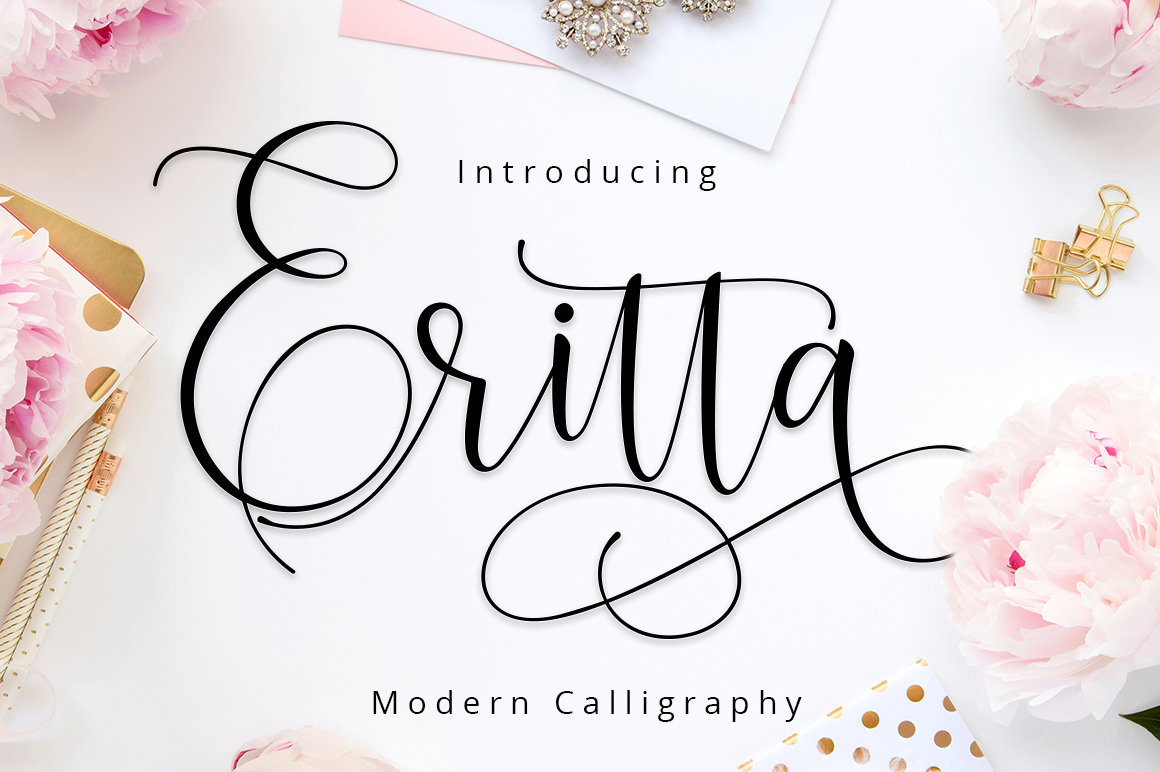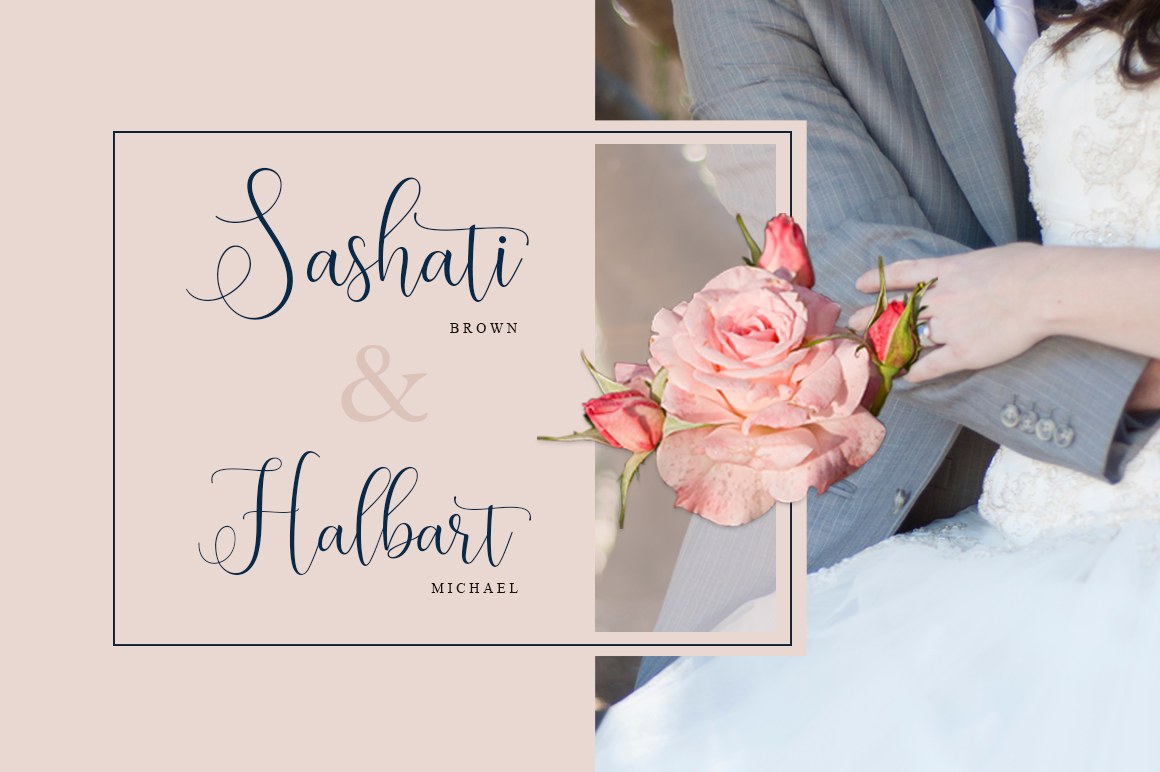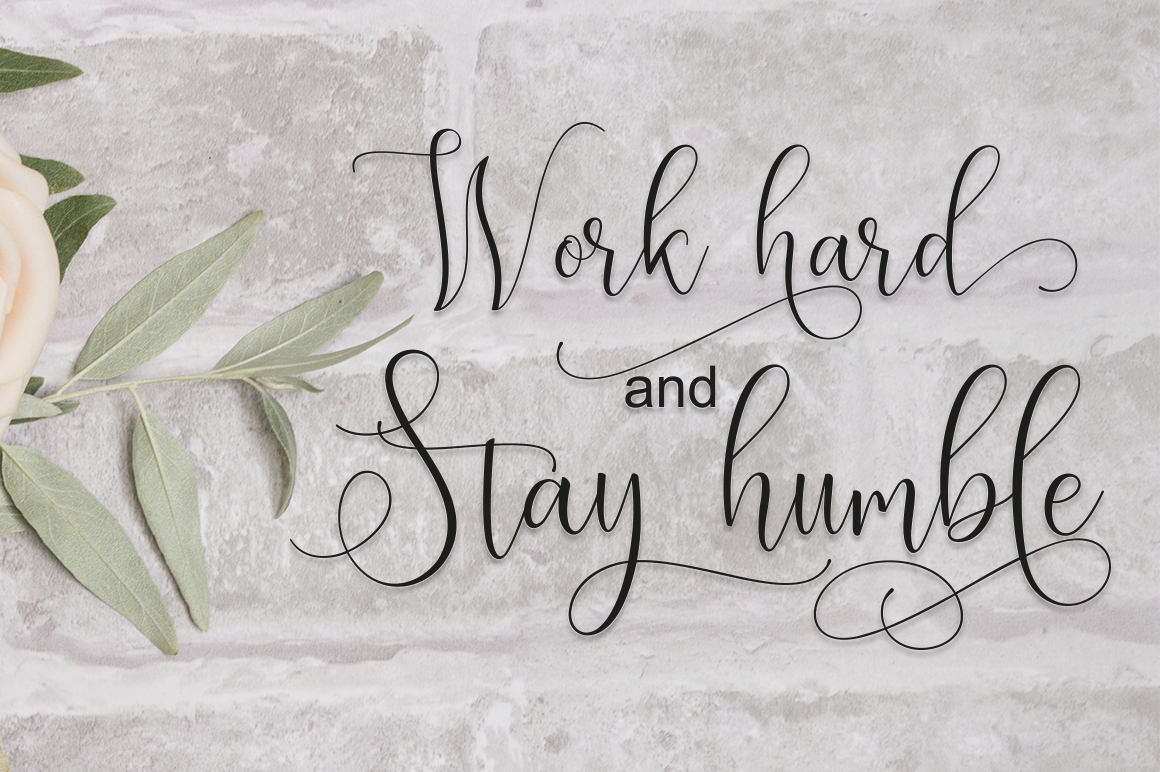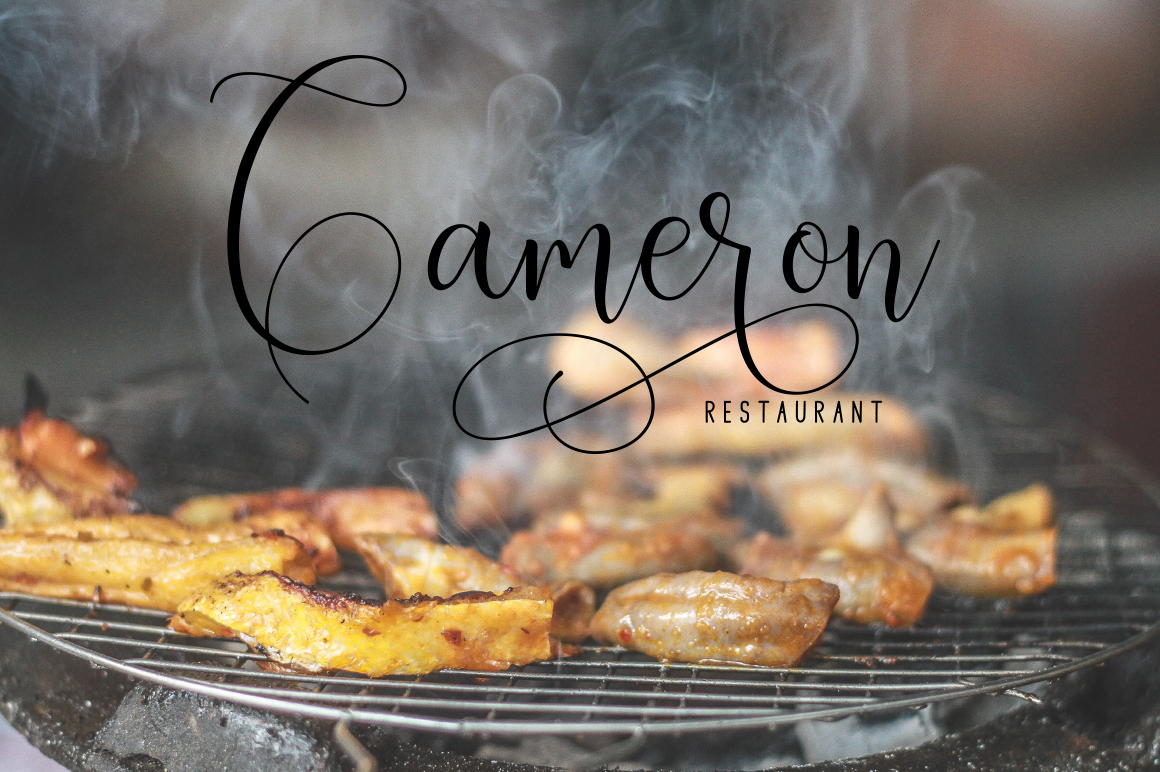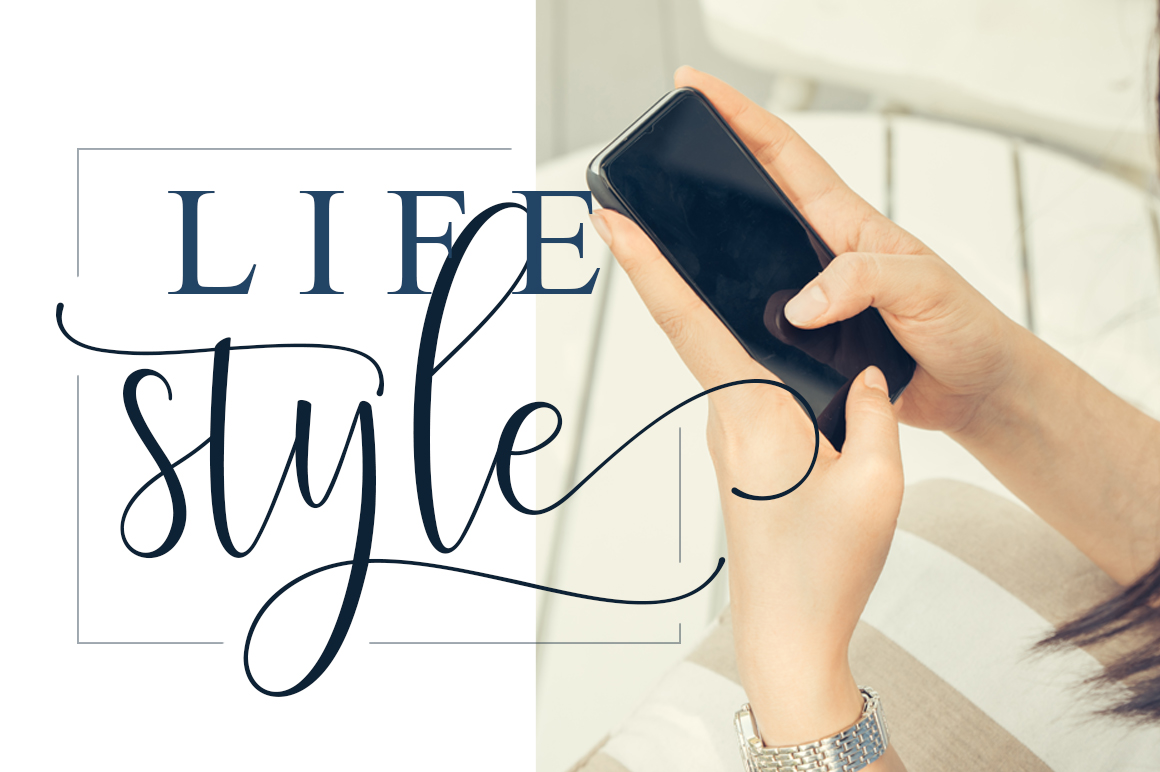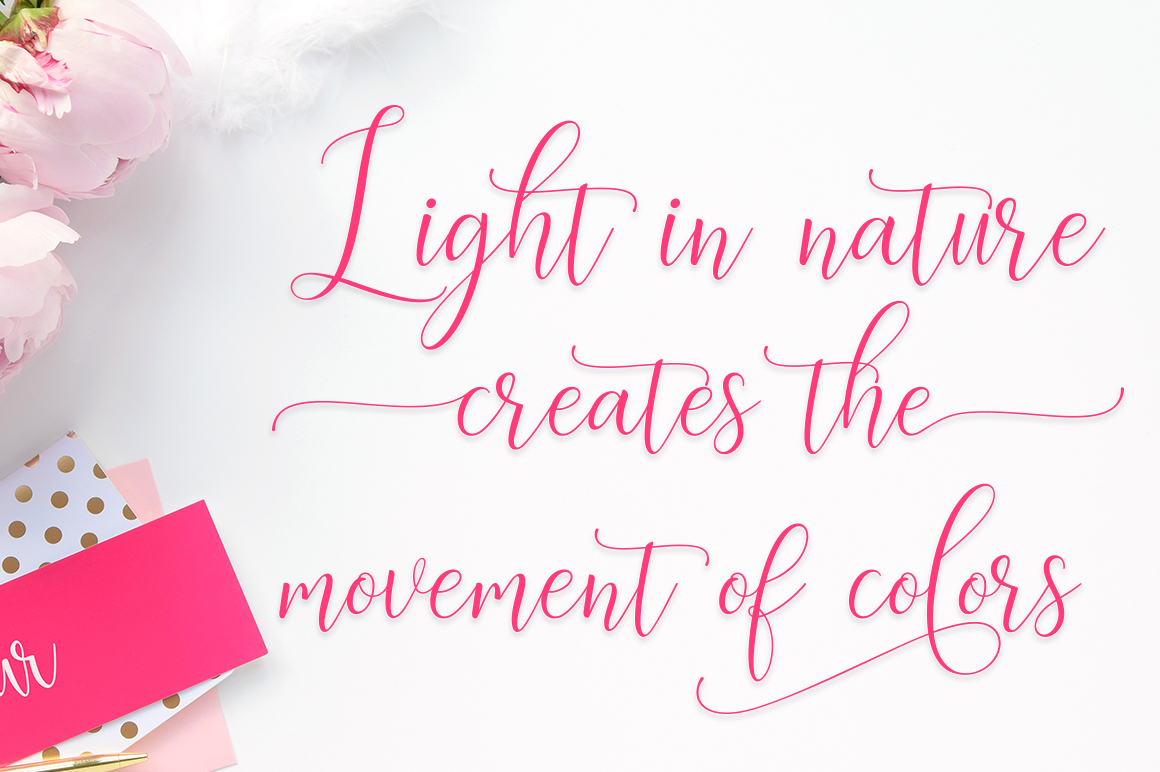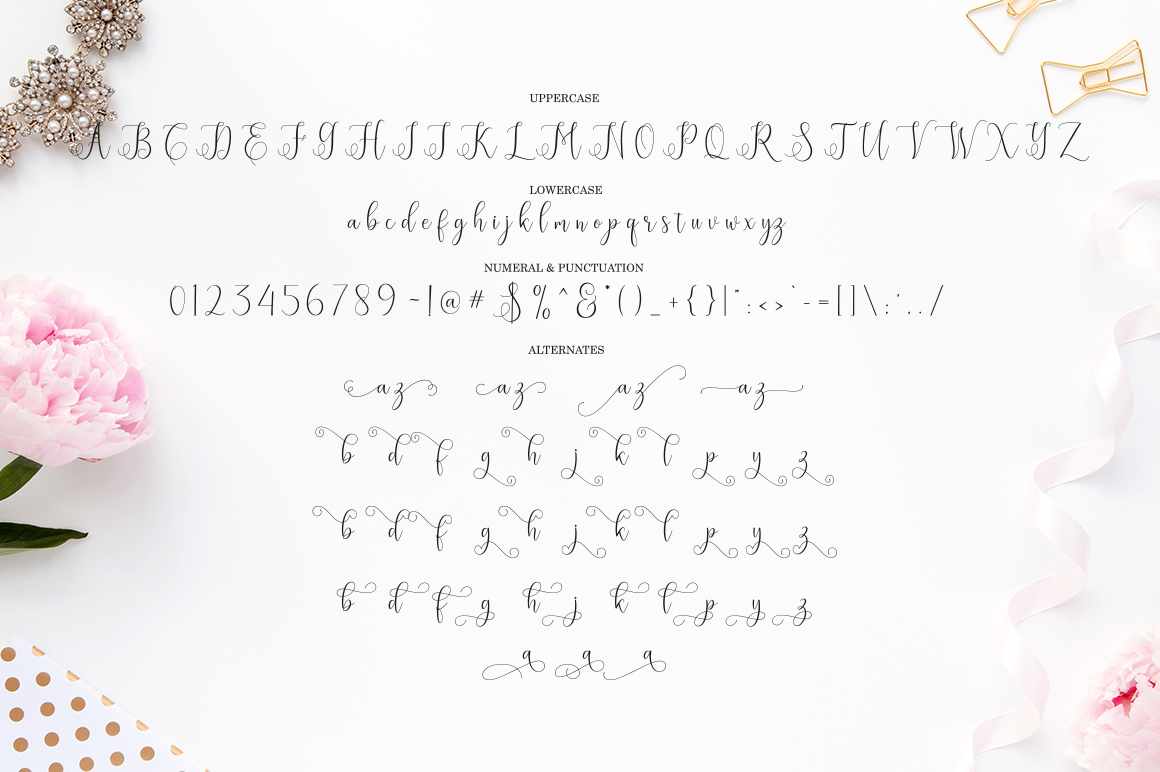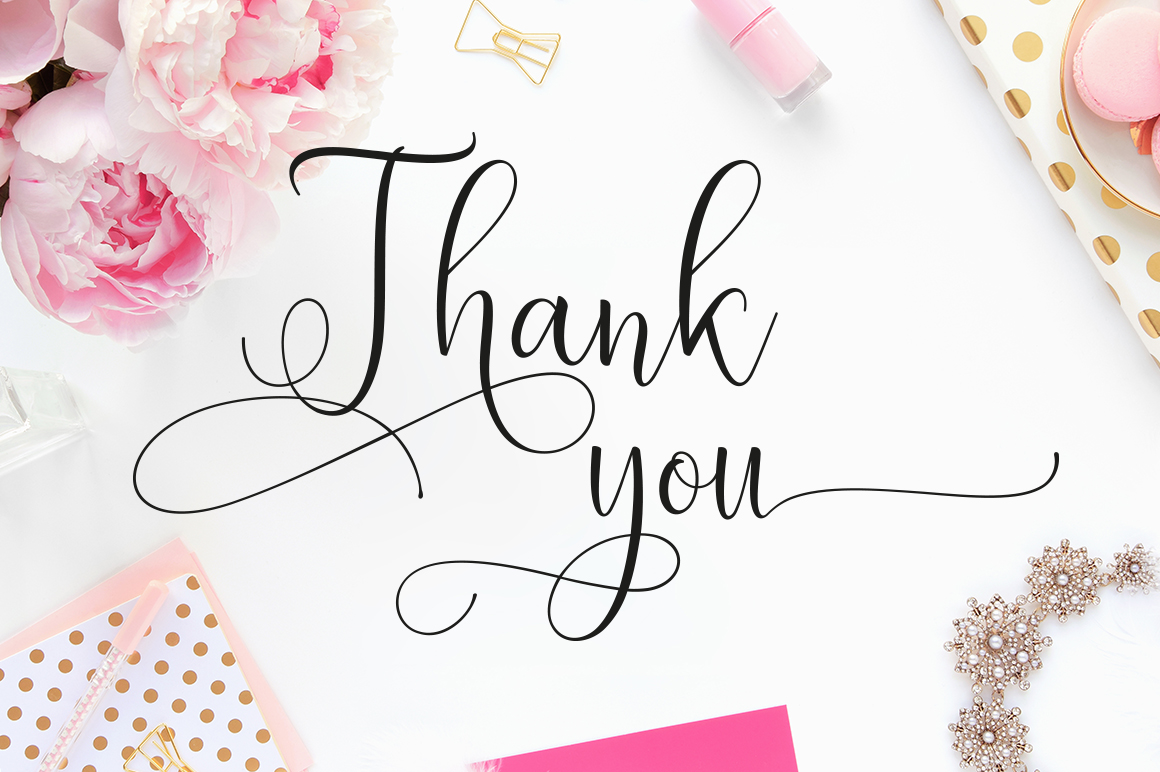
Eritta Font
About Eritta Font
The Eritta Script is a modern calligraphy-style family that comes with 4 variations: Regular, Slant, Bold & Slant Bold.
This decorative characters dance on your screen and will turn your designs from boring to elegant and lively within seconds.
It comes packed with over 560 unique glyphs and comes packed with swashes.